Comic Sans does something good for a change: helping to fight cancer
This October is the 20th birthday of Comic Sans, perhaps the most hated typeface in the world. Rather than celebrating, many people will mark the anniversary by wishing that the childish-yet-ubiquitous font would just go away.
But a trio of British designers is leveraging the passion that Comic Sans arouses for a good cause. They’ve launched Comic Sans for Cancer, an exhibition of posters inspired by the typeface, and are donating the proceeds to the British charity Cancer Research UK.
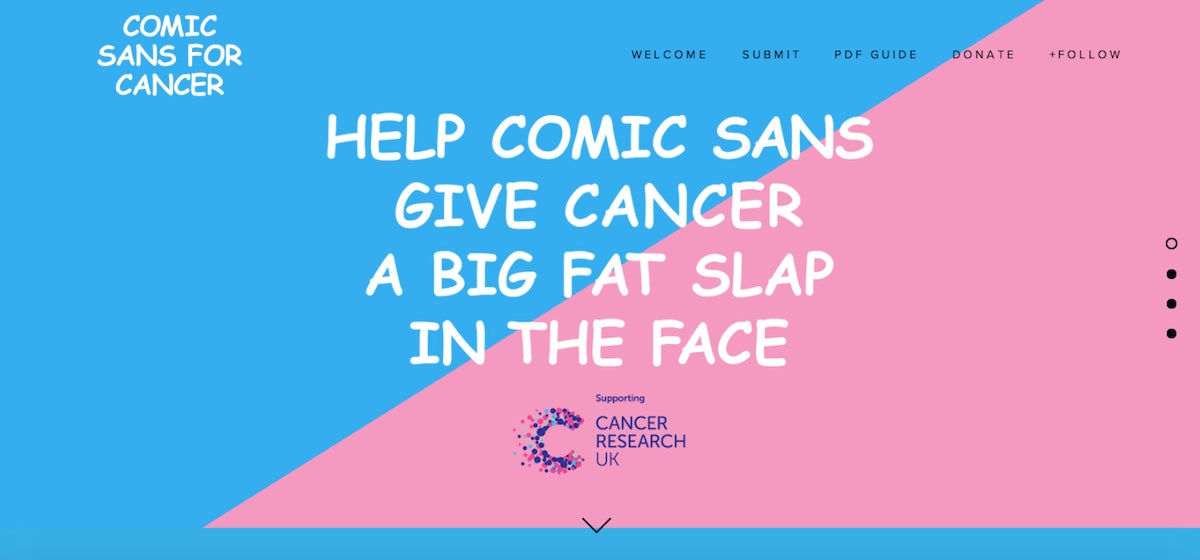
The campaign asks designers to submit a typographic poster in response to Comic Sans. Paeans and philippics are equally welcome. “As designers, we despise Comic Sans and that’s the fun of it; to use something that’s perceived as being a little bit unloved for good,” the campaign’s organizers explain.